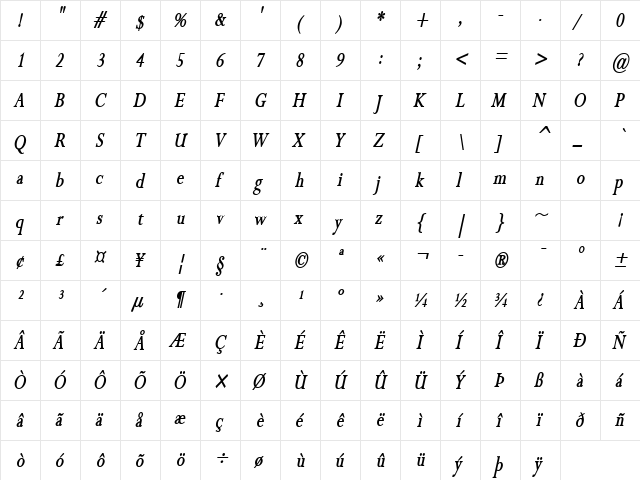
Rapid Thin BoldItalic Font Preview
Design Context for Rapid Thin Typeface
Rapid Thin takes a measured approach to typography — its balanced proportions and neutral character make it a reliable workhorse for both digital and print work. The slanted form adds forward momentum and visual energy. The heavy weight commands attention and anchors typographic hierarchies.
Pro Tip: Try Rapid Thin for annotation and caption copy alongside an upright companion — the contrast in angle creates a dynamic but ordered typographic system.